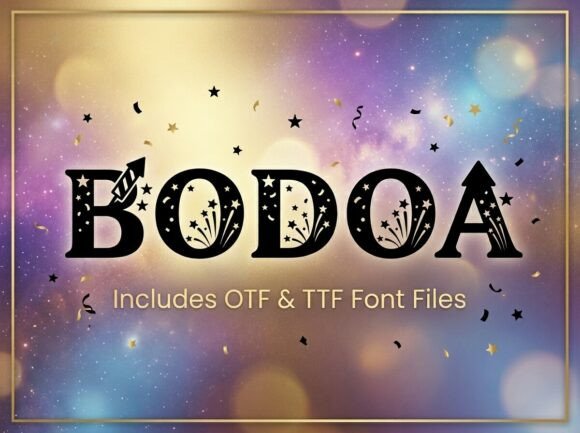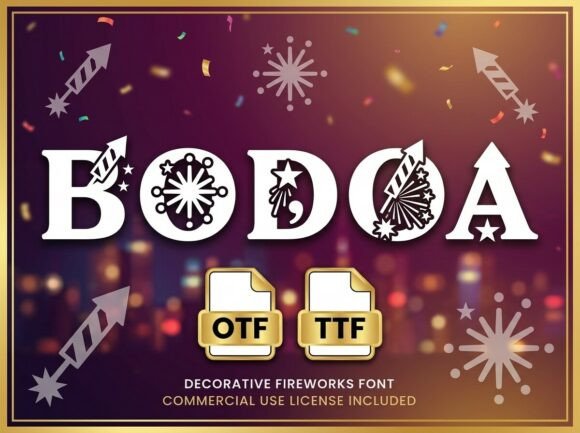
Light Up the Night with Bodoa: The Ultimate Festive Display Typeface
Are you looking for a font that can add a touch of excitement and celebration to your designs? Look no further than Bodoa, an explosive display typeface that captures the essence of festive and radiant soul. This bold, high-contrast serif font is integrated with a spectacular array of pyrotechnic icons, making it perfect for event planning branding, New Year’s Eve gala logos, festival announcement titles, and high-impact social media headers.
The Features of Bodoa Font
Bodoa font features bold, high-contrast serif letterforms that are sure to grab attention. But what really sets it apart is its integration with a range of pyrotechnic icons, including soaring rockets, bursting sparklers, and shimmering star clusters. These icons add a rhythmic celebratory detail to the font, giving it a high-energy presence that’s perfect for creating festive and engaging designs.
Perfect for Celebration and Spectacle Designs
Bodoa font is the premier choice for designers who want to create high-impact designs that celebrate special occasions. Whether you’re working on a New Year’s Eve gala logo, a festival announcement title, or a social media header for a special event, Bodoa has got you covered. Its bold and eye-catching design is sure to grab attention and leave a lasting impression on your audience.
Why Designers and Crafters Love Bodoa
Designers and crafters love Bodoa for its unique and festive design. Here are just a few reasons why:
- Unique Design: Bodoa’s integration with pyrotechnic icons makes it a one-of-a-kind font that’s sure to stand out from the crowd.
- High-Energy Presence: The font’s bold and high-contrast design gives it a high-energy presence that’s perfect for creating engaging and festive designs.
- Versatility: Bodoa can be used for a range of designs, from event planning branding to social media headers.
How to Use Bodoa in Your Designs
Using Bodoa in your designs is easy. Here are a few tips to get you started:
- Pair with a Simple Font: Pair Bodoa with a simple font to create a striking contrast and make your design stand out.
- Use for Headlines: Use Bodoa for headlines and titles to add a touch of excitement and celebration to your design.
- Add Pyrotechnic Icons: Add pyrotechnic icons to your design to give it a festive and engaging touch.
Bodoa font is the perfect choice for designers who want to add a touch of excitement and celebration to their designs. With its bold, high-contrast serif letterforms and integration with pyrotechnic icons, Bodoa is sure to grab attention and leave a lasting impression on your audience. Whether you’re working on a New Year’s Eve gala logo, a festival announcement title, or a social media header, Bodoa has got you covered.
Get Ready to Light Up the Night with Bodoa